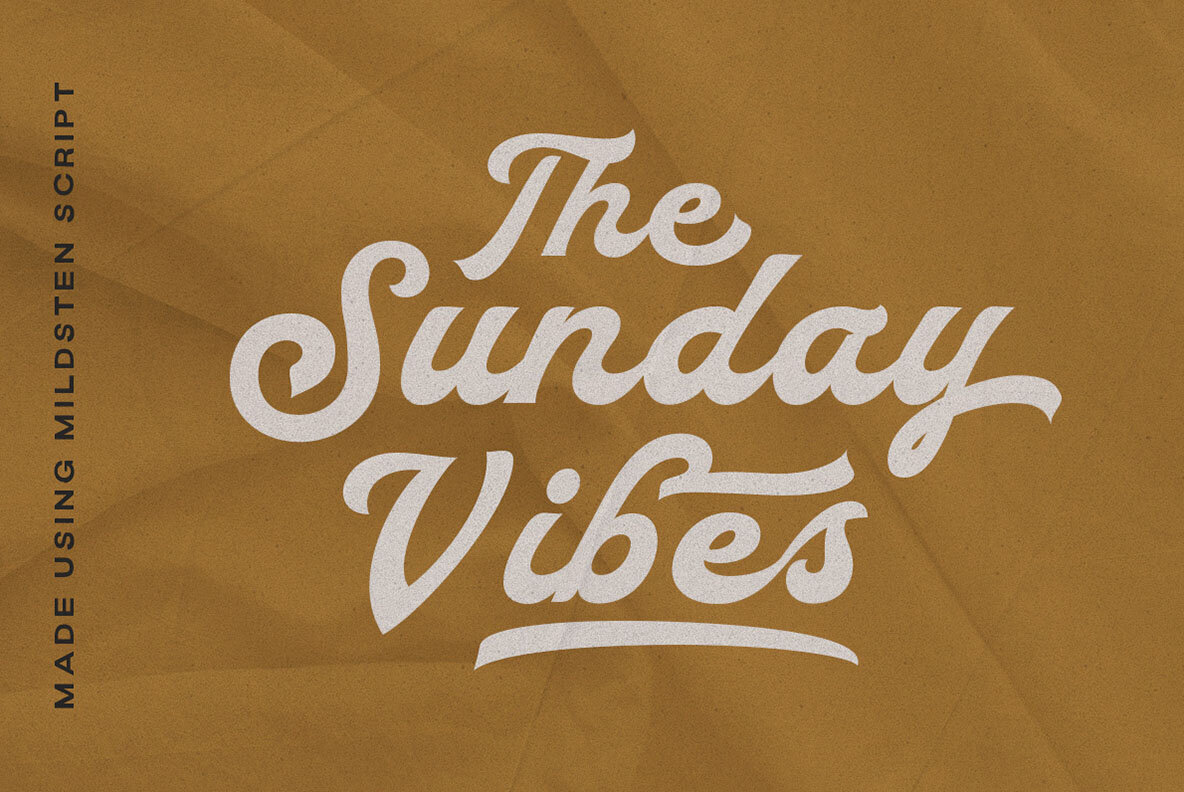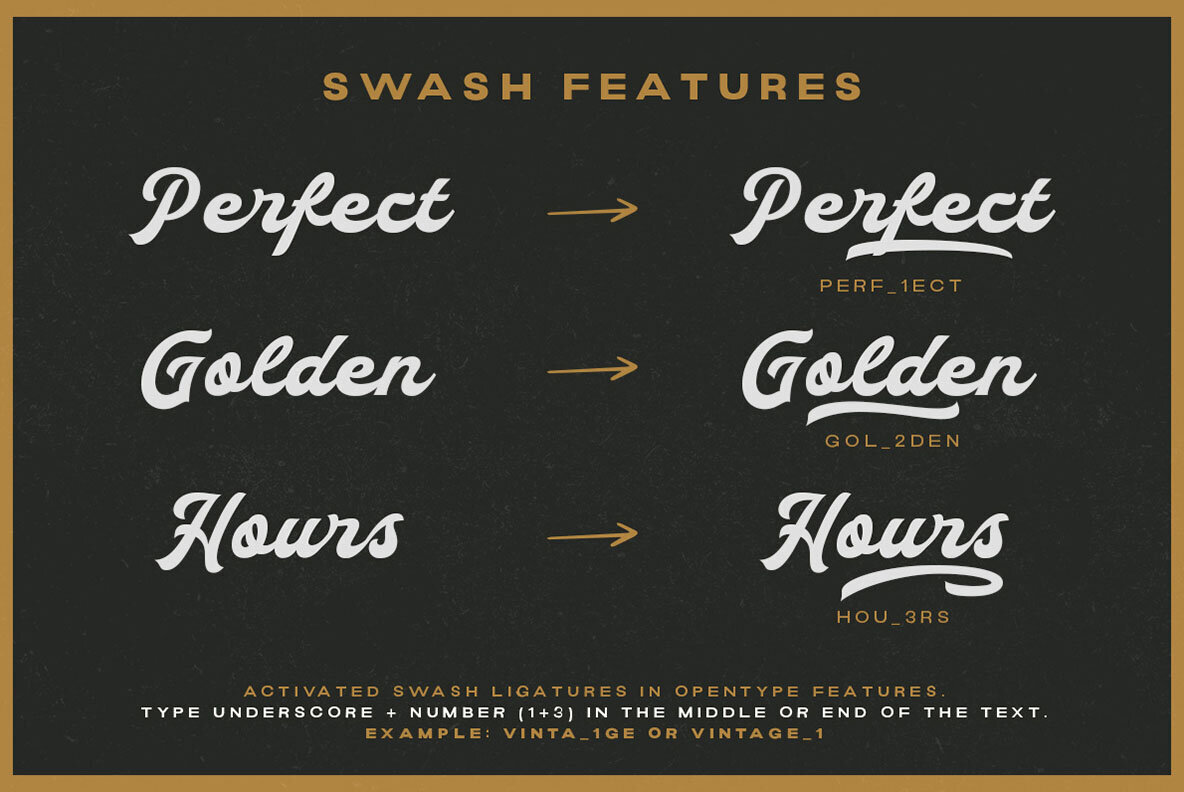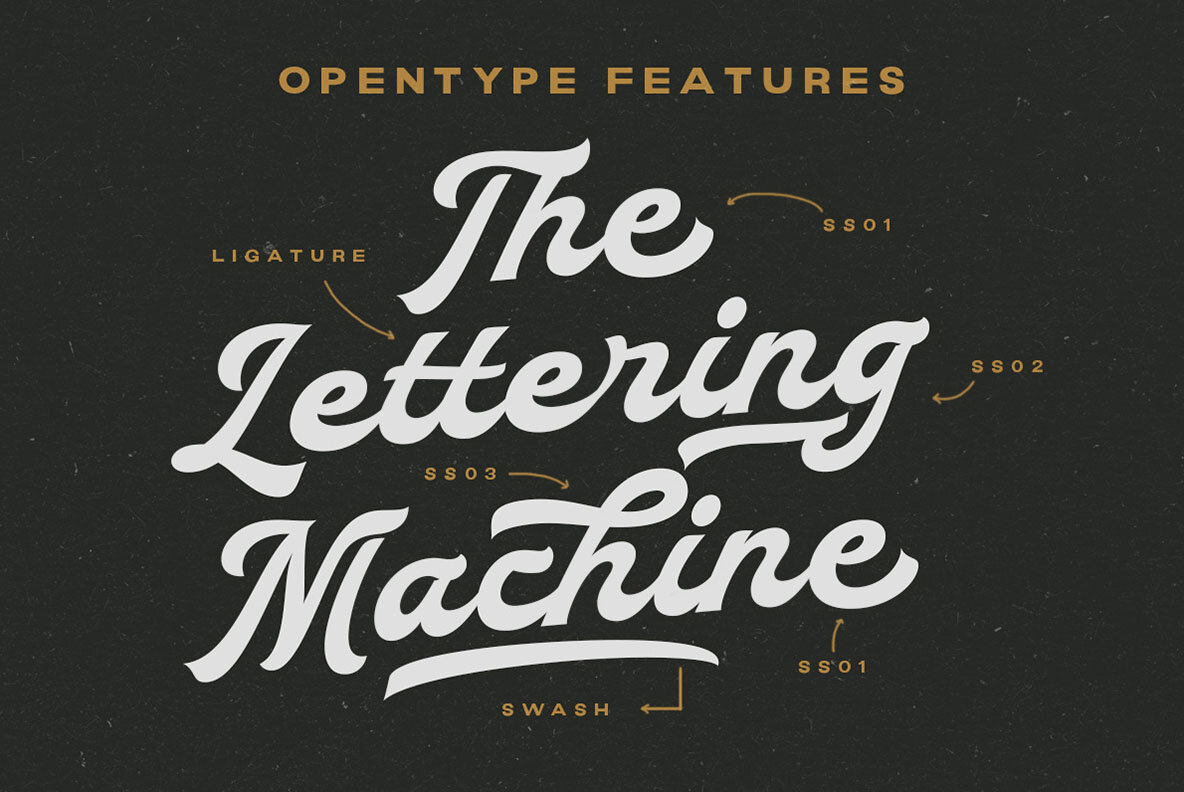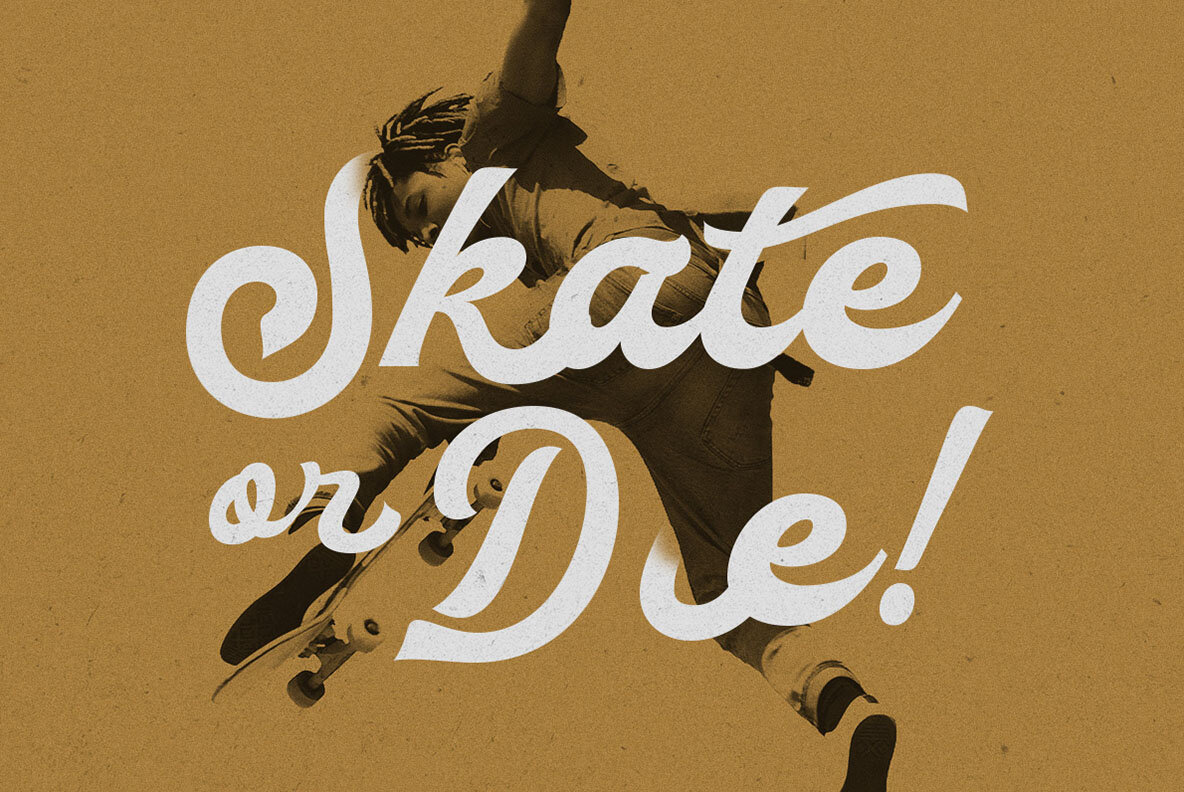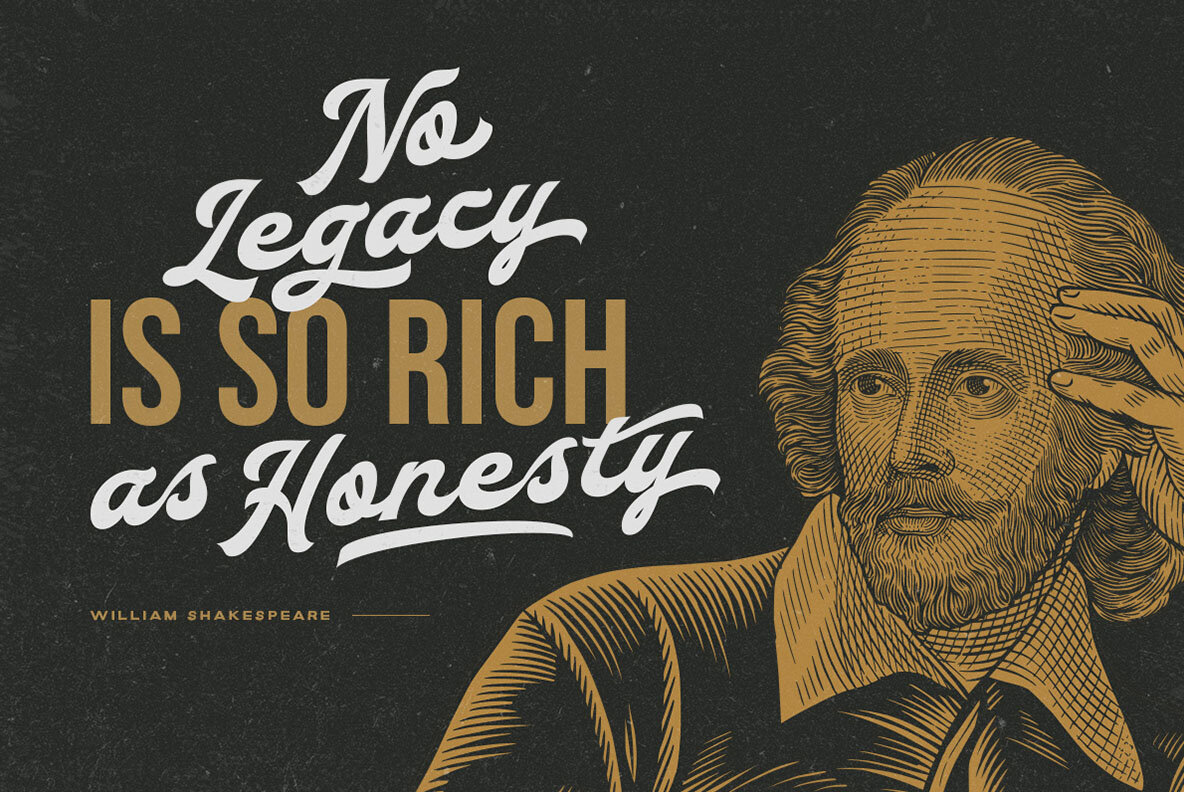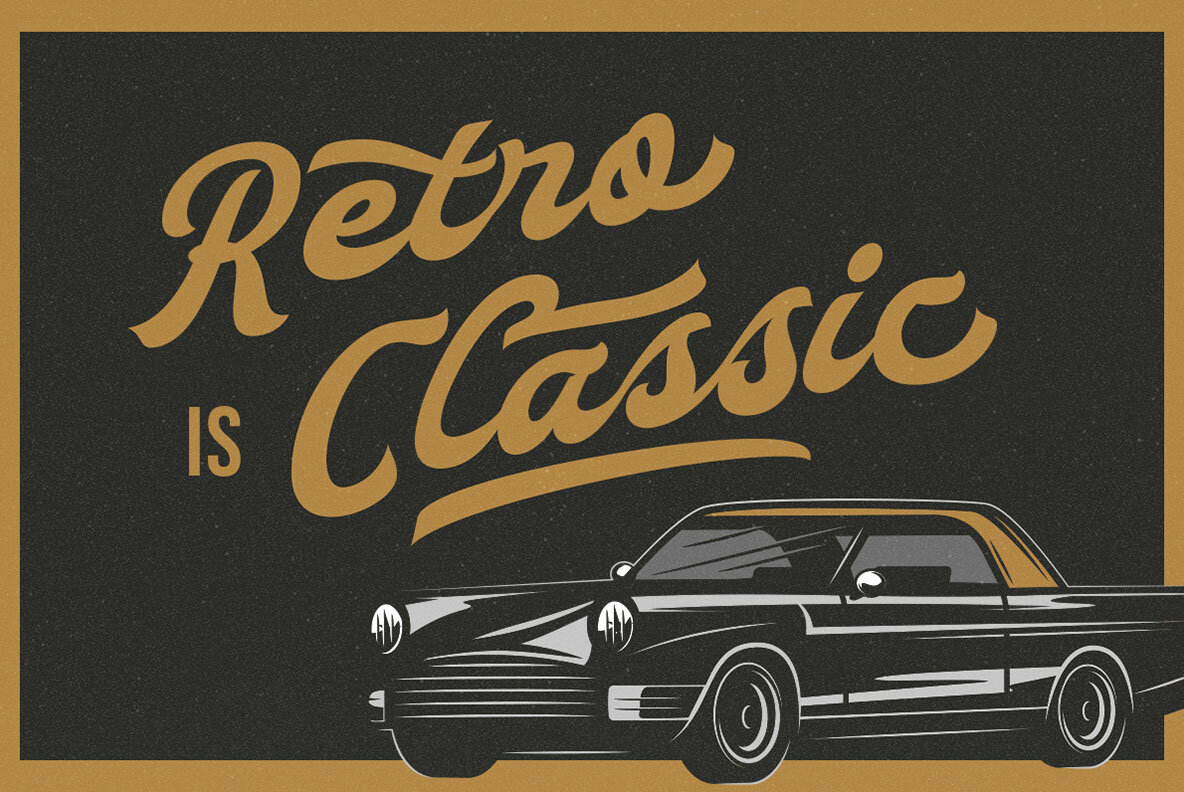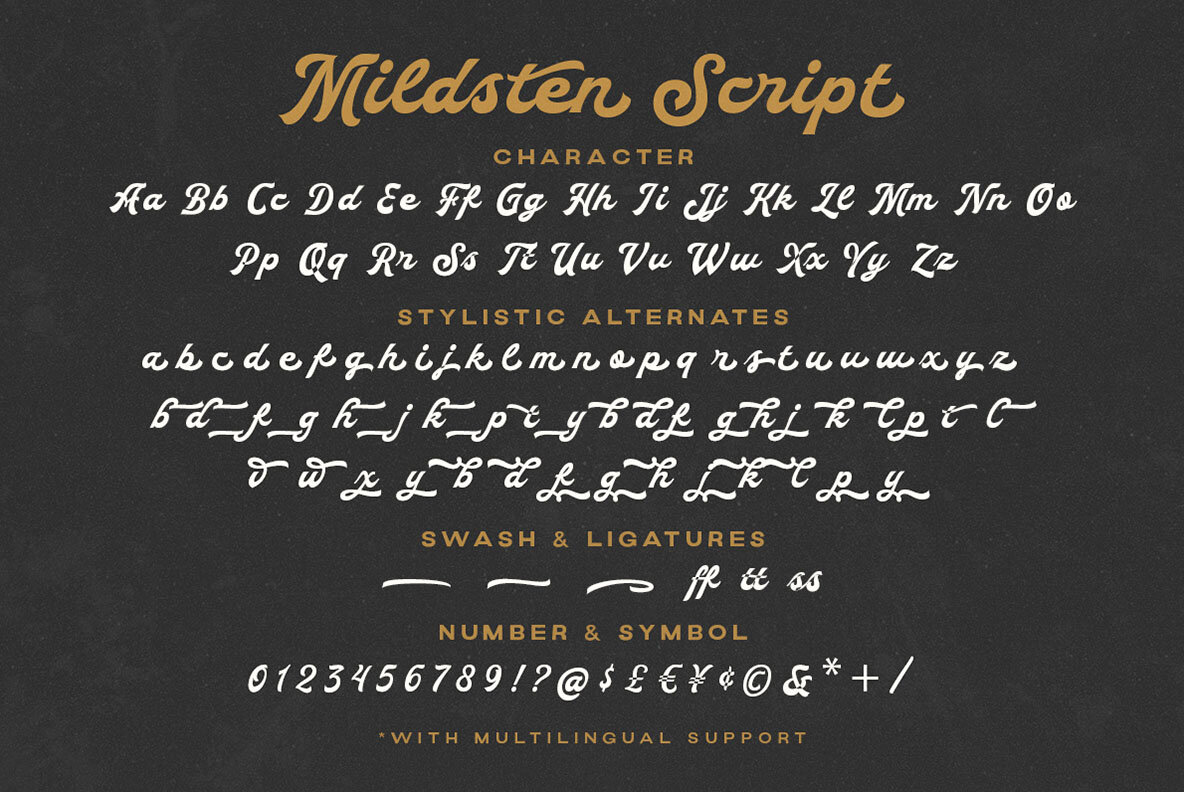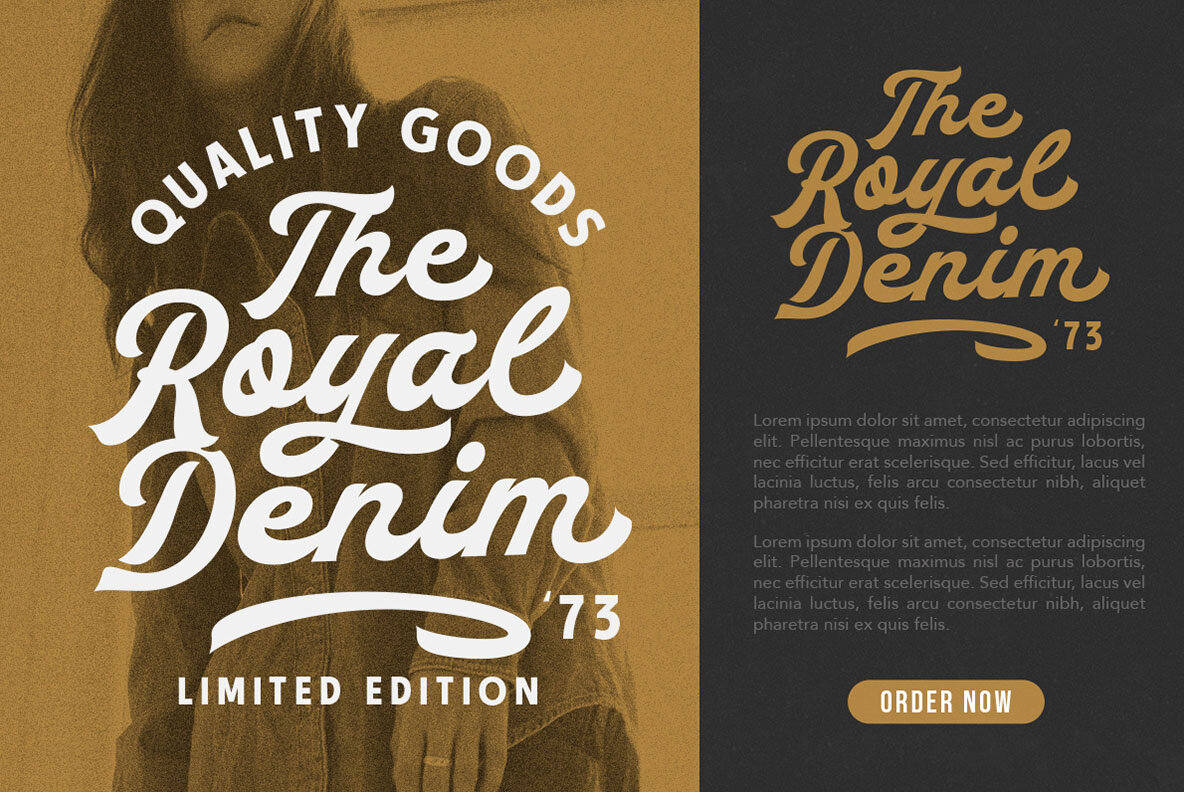
Mildsten Font
Mildsten Regular
Mildsten is a bold script font designed to exude a classic aesthetic. Perfect for logos and a variety of formal applications, this font is ideal for invitations, labels, magazines, books, greeting or wedding cards, packaging, fashion, makeup, stationery, novels, or any advertising purposes. For the best experience, use programs that support OpenType features and Glyphs panels, such as Adobe applications and Corel Draw. This allows access to all glyph variations. To utilize alternate characters or swashes, OpenType is required. Please check this ... for a tutorial on accessing OpenType features in any software. For further inquiries, reach out to us at •••. Happy designing!Mildsten: A Classic Bold Script